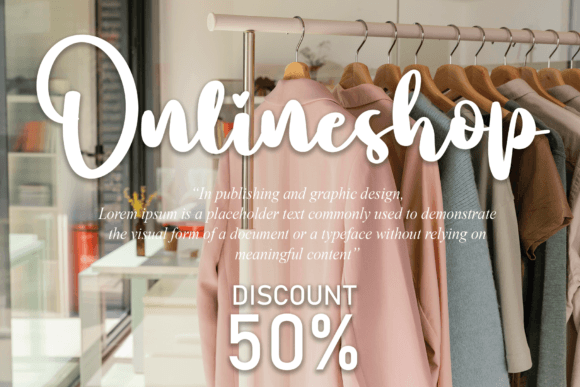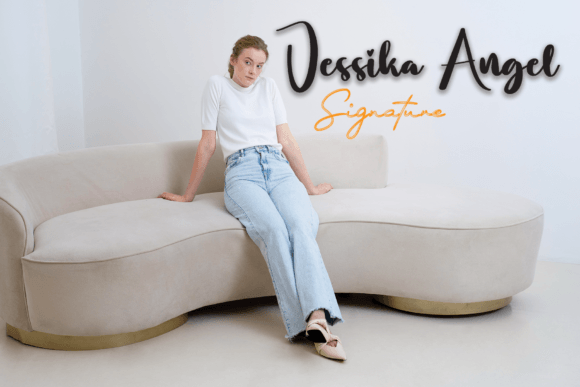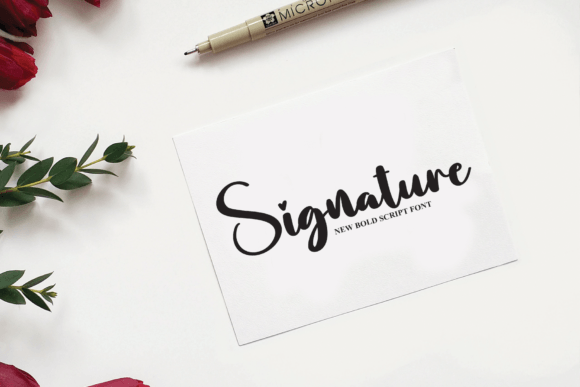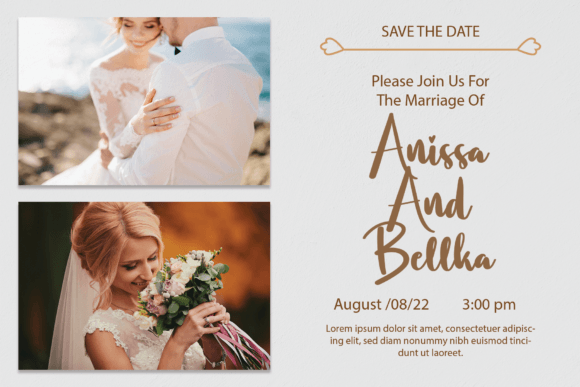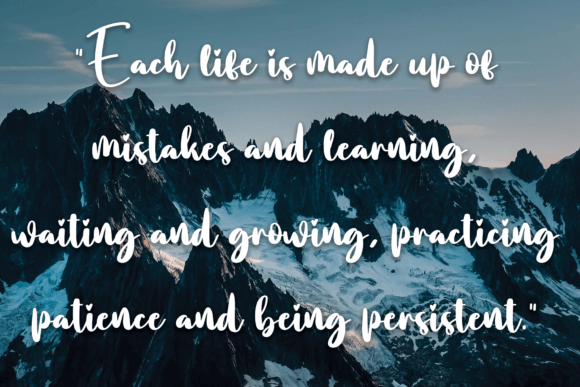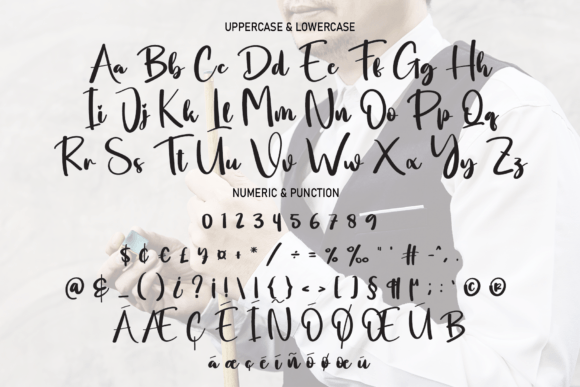
The Perfect Stroke: Introducing Billiard Font
Have you ever stared at a blank page, pencil in hand, waiting for the perfect idea to strike? It’s those moments of creative spark that can lead to something truly special – like the introduction of Billiard Font. This latest style of letters is more than just a typeface; it’s a way to add a touch of handmade charm to any project.
Billiard Font is designed to bring a handwritten feel to your designs, making it perfect for wall displays, wedding invitations, and even social media post logos. For designers, this font is a valuable addition to their toolkit, offering a unique way to add personality to their work. Whether you’re working on a product design, label, or photography project, Billiard Font is sure to bring a touch of elegance and sophistication.
Billiard Font Key Features
- Unique Characteristics: Billiard Font features a distinctive, hand-drawn design with a vintage flair, reminiscent of classic billiard tables. Its unique blend of elegance and playfulness makes it ideal for various design applications.
- Language Support: Billiard Font supports a wide range of languages, including Latin, Cyrillic, and Greek alphabets, as well as many non-Latin scripts, making it a versatile choice for global branding and design projects.
- Kerning and Ligatures: The font includes advanced kerning and ligature features, ensuring that letter combinations are properly spaced and visually appealing, even at small font sizes.
- Style Variations: Billiard Font offers multiple style variations, including Regular, Bold, Italic, and Bold Italic, allowing designers to achieve a range of visual effects and emphasis in their designs.
Billiard Font Review
Overall, I think the Billiard Font is a great addition to any designer’s toolkit, with some notable strengths and weaknesses. ✨
- Unique aesthetic: The Billiard Font has a distinctive, vintage vibe that’s sure to add some personality to your designs.
- Wide range of uses: Whether you’re creating a poster, flyer, or even a logo, this font is versatile and easy to work with.
- High-quality design: The font is well-crafted and free of any major issues, making it a great choice for professional designers.
- Limited language support: Unfortunately, the Billiard Font only supports Latin characters, which may limit its use for designers working with non-Latin languages.
- Lack of bold/italic variations: While the font is great for body text, it may not be the best choice for headings or titles, as it doesn’t offer any bold or italic variations.
- May not be suitable for small text: Due to its unique style, the Billiard Font may not be the best choice for small text, as it can become difficult to read.
The Billiard Font is a great choice for designers looking for a unique and stylish font to add some personality to their designs. While it may have some limitations, its strengths far outweigh its weaknesses, making it a valuable addition to any designer’s toolkit.
Getting the Most Out of the Billiard Font
To get the most out of the Billiard Font, use it for designs that require a vintage or retro feel. It pairs well with distressed textures and bold colors.